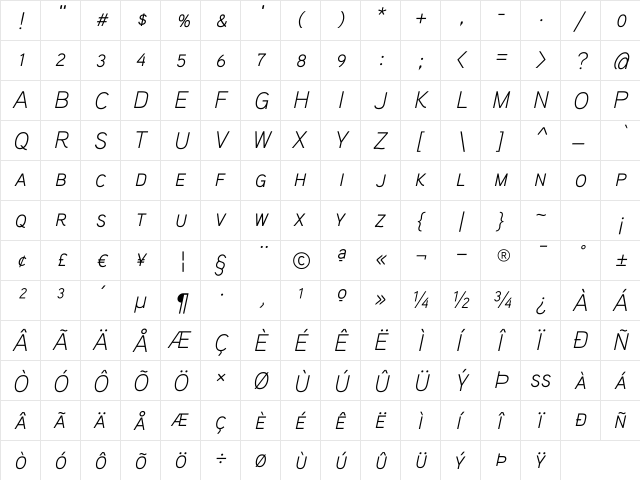
Aaux ProLight Italic SC Regular Font Preview
Design Context for Aaux ProLight Italic SC Typeface
Aaux ProLight Italic SC offers clean, dependable letterforms without strong stylistic allegiance, making it a practical choice for designers who need flexibility. Its italic angle brings a sense of urgency and motion to the letterforms. Its slender proportions lend an understated elegance to any composition.
Pro Tip: Use Aaux ProLight Italic SC for emphasis, pull quotes, and subheadings where its slanted energy can add rhythm to the layout.